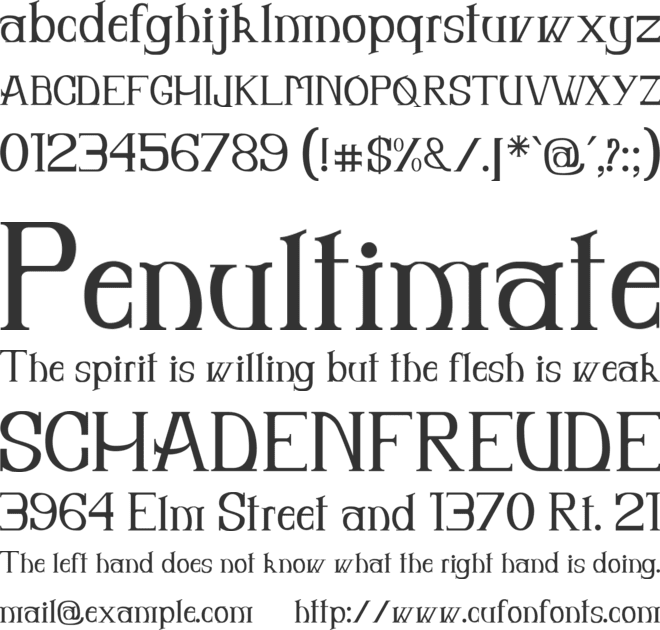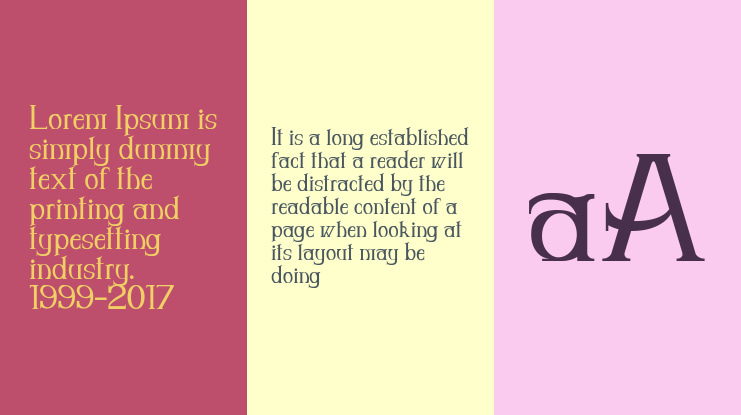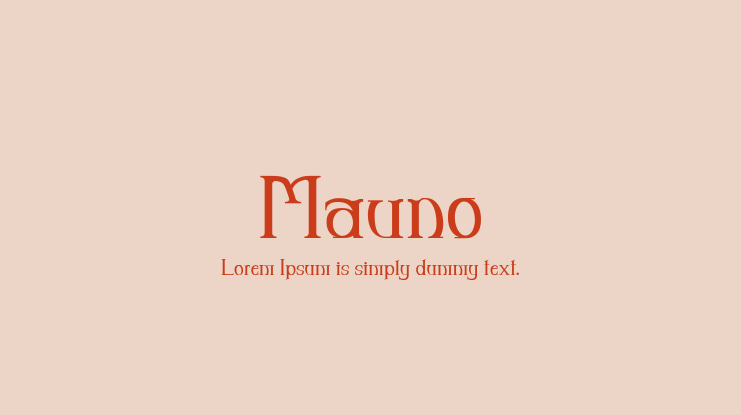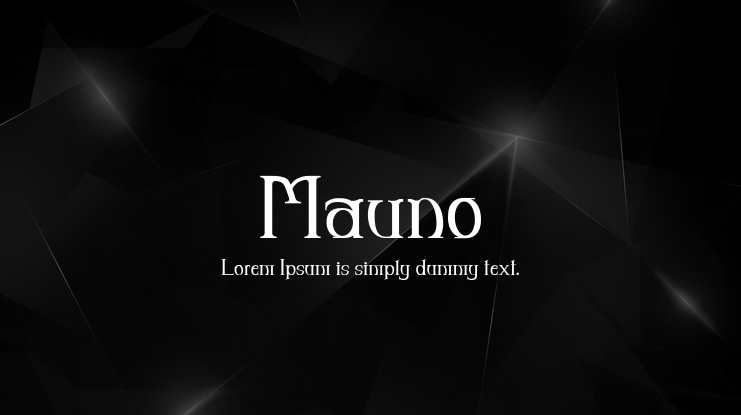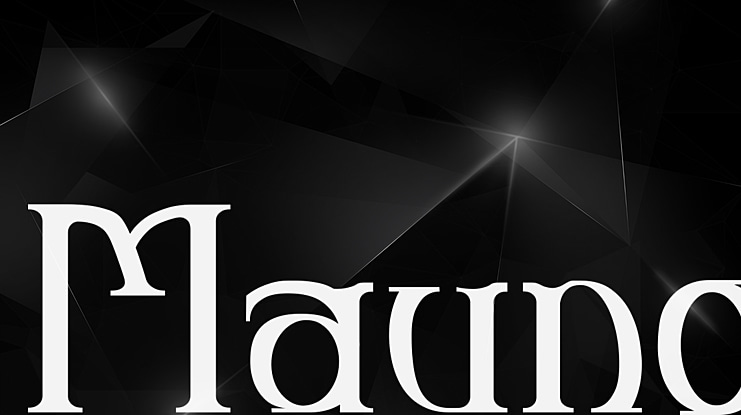
Mauno Font
During a week we had to create a typography from a simple image and draw as much glyph as we could. This type is free, but you can donate if you want!
This typeface as has been produced during a workshop with James Griffin, she is inspired by gothic abatement and is created to have a strong base with a spike top like those buildings.